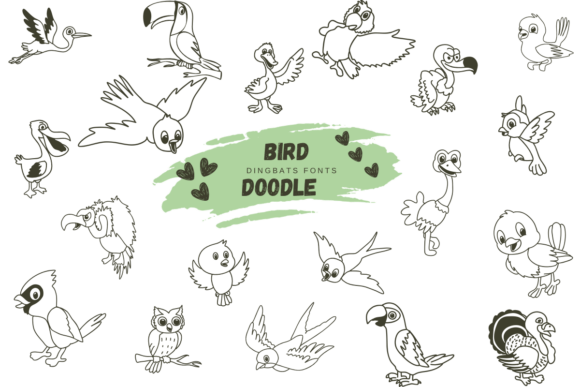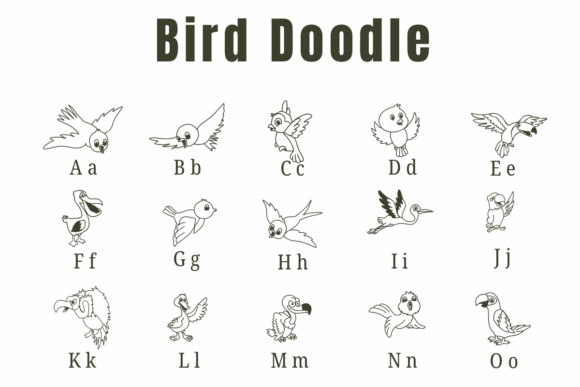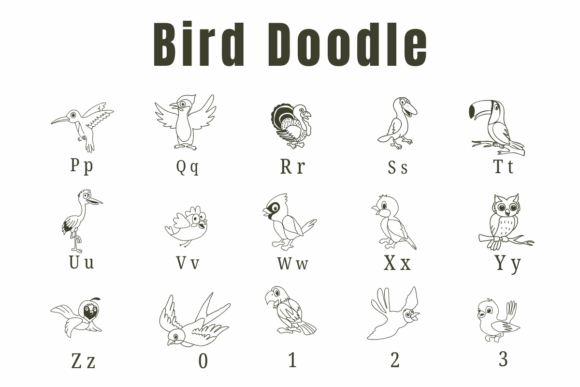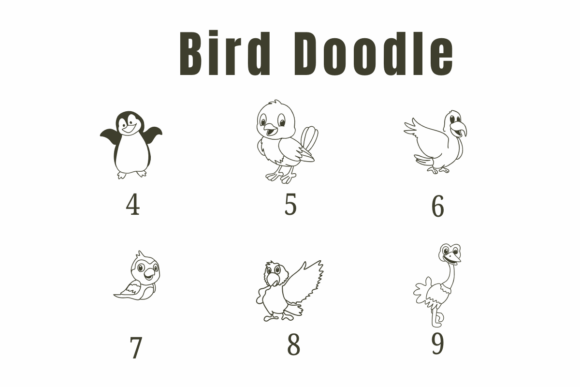
Bird Doodle Font: Cute Dingbats for DIY Crafts & Cricut Projects!
About the Bird Doodle Font
Welcome to the world of Bird Doodle Font, a typeface that will inspire your next great project. Bird Doodle is a dingbats font with a sketched style. This font can enhance your creative projects such as wedding invitations, DIY, crafts, decorations, logos, and many other creative ideas.
Bird Doodle’s sketched style works best for headlines, logos, short text blocks on packaging, and social media graphics. Its hand-drawn nature adds a playful, whimsical touch, making it ideal for brands targeting a younger demographic or projects with a handcrafted aesthetic. Avoid using it for body text or lengthy paragraphs; its informal character is unsuitable for extended reading.
Consider pairing Bird Doodle with a clean sans-serif like Open Sans for a balanced contrast, or a more geometric sans-serif for a modern feel. For a more sophisticated look, a classic serif like Garamond could work, providing a refined counterpoint to the font’s casual energy.
The overall personality of Bird Doodle is lighthearted and approachable, making it a strong choice for projects that need a touch of friendly informality.
Bird Doodle Font Usage Examples
Bird Doodle Font Example